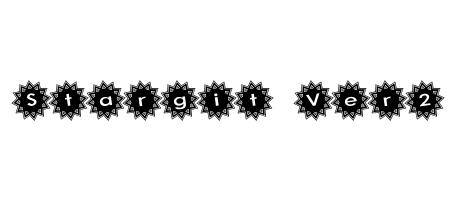
Stargit
By GemFonts / Typotheticals
Stargit Ver2 is a playful, decorative font. Each letter is encased within a bold, black, sunburst-like frame, suggesting energy and vibrancy. The white lettering offers high contrast against the black background of each frame, ensuring legibility. The overall style is whimsical and eye-catching, suitable for titles or logos requiring a fun, slightly retro feel.